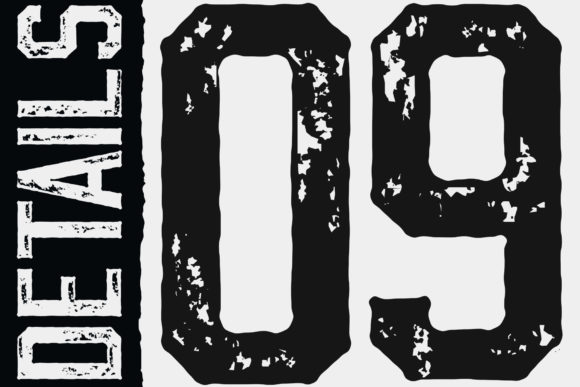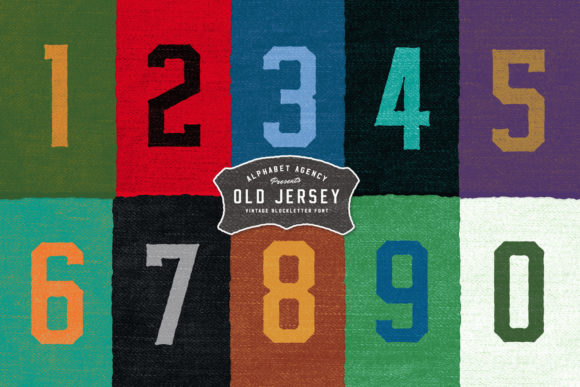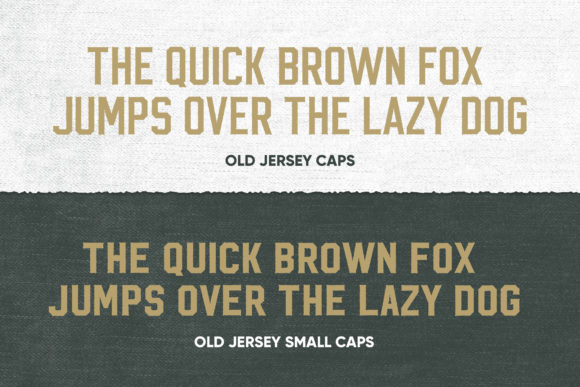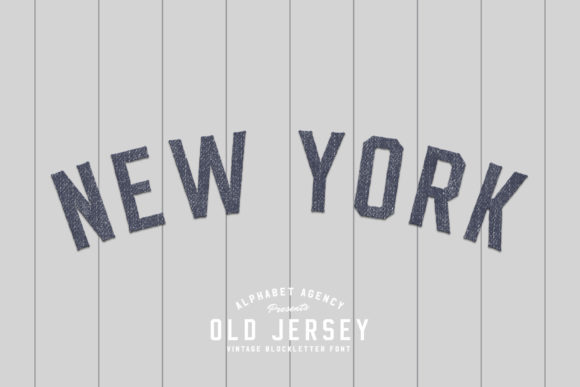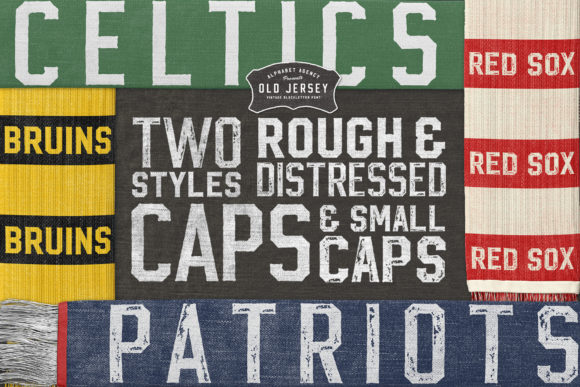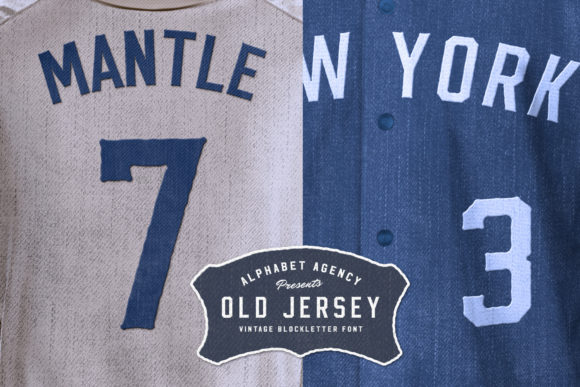
Introduction to Old Jersey Font
Old Jersey is a cool, vintage styled and rough textured display font.
This adaptable font will look great on a variety of design ideas It will add a distinct touch to each of your projects.
Key Features of Old Jersey Font
Why Choose Old Jersey Font?